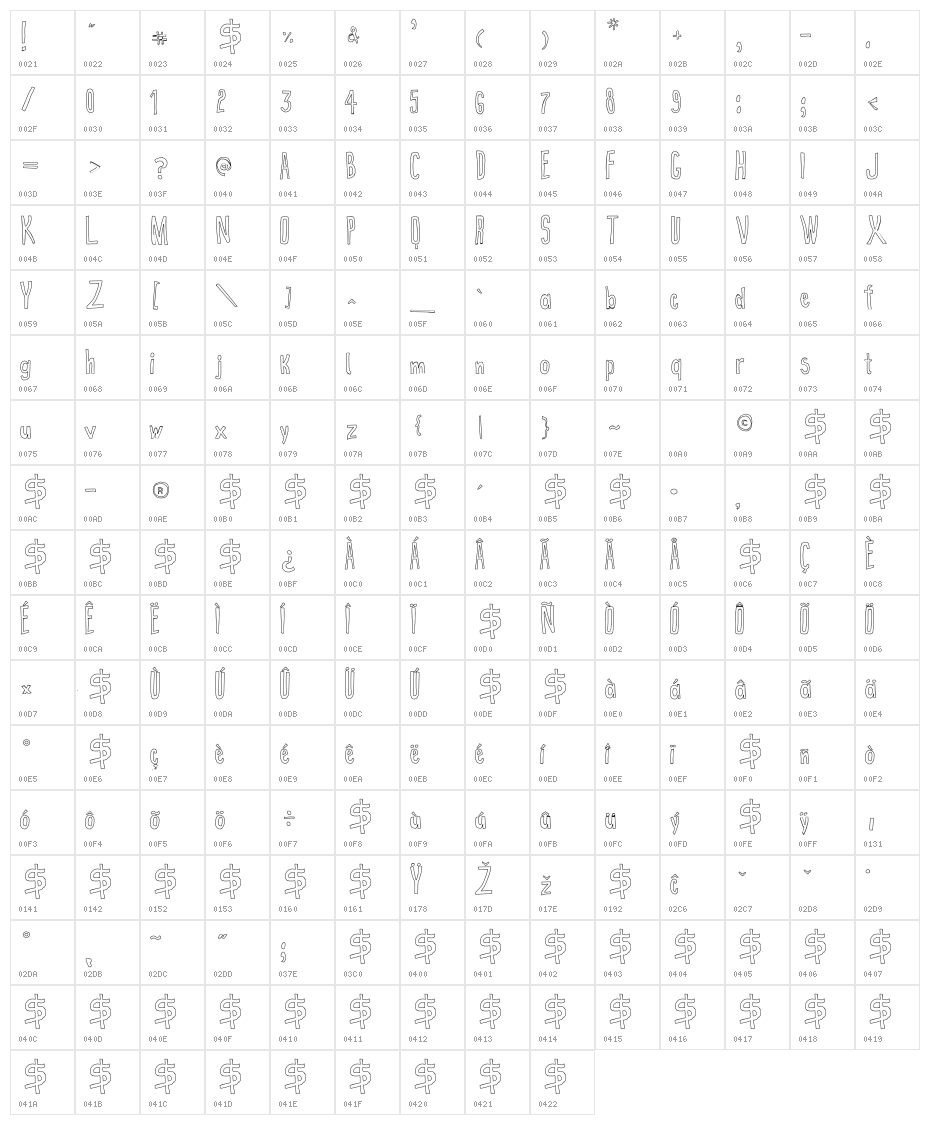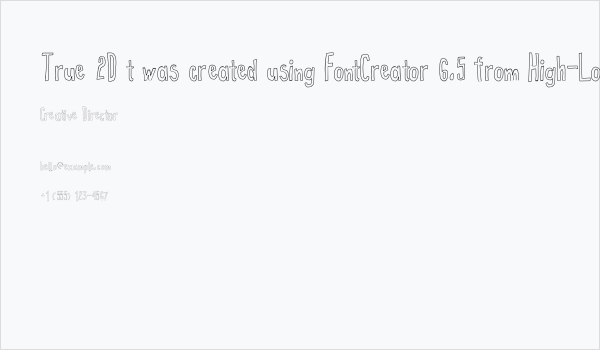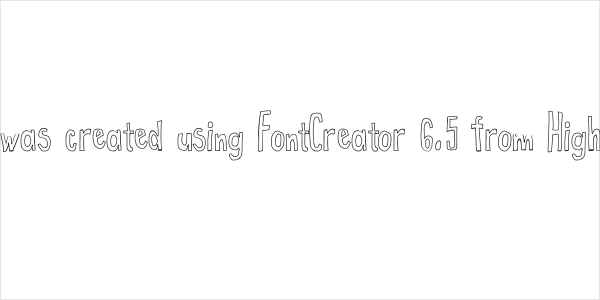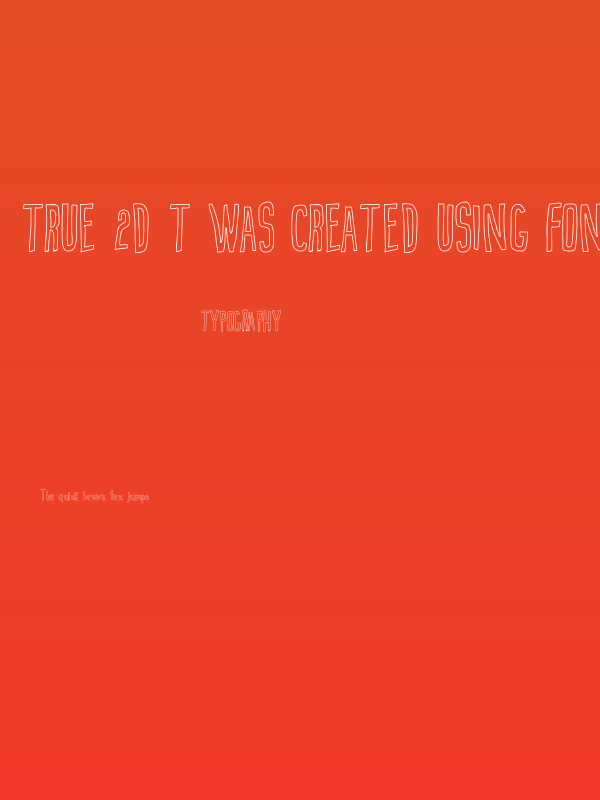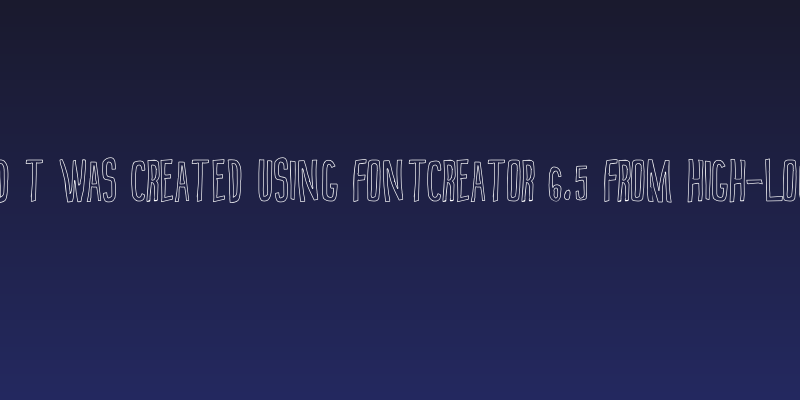
True 2D t was created using FontCreator 6.5 from High-Logic.com Font
True 2D t was created using FontCreator 6.5 from High-Logic.com Description
This font features a playful and hand-drawn aesthetic, characterized by its irregular, slightly wavy lines that give it a casual and informal appearance. The uppercase and lowercase letters maintain a consistent style, with a quirky, uneven stroke that adds a sense of movement and personality. The numbers and special characters follow the same design principles, ensuring a cohesive look across all glyphs. This font's unique style makes it stand out, offering a whimsical touch that is both approachable and visually engaging.
| Proposed Projects | Ideal for children's books, greeting cards, playful branding, and creative posters. |